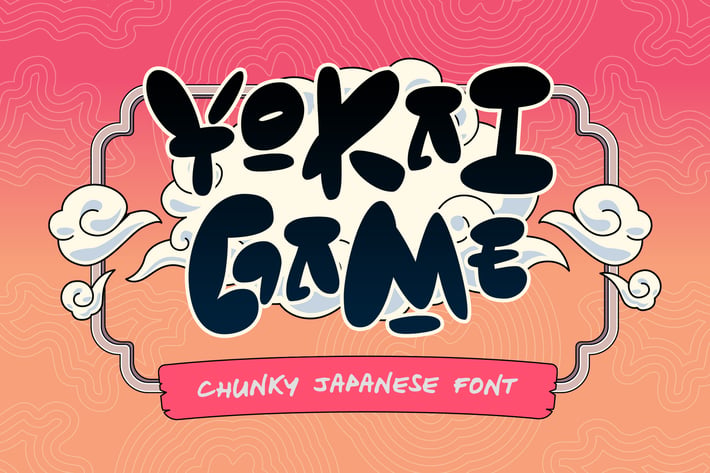
Yokai Game - Chunky Japanese Style Font
Yokai Game- Chunky Japanese Artistic Font - Bold Modern Contemporary Game Anime Display Font
Yokai Game is a Chunky Japanese Font inspired by traditional Japanese aesthetics and bold contemporary design. Its thick, striking characters bring a fusion of cultural richness and modern visual appeal, ideal for logos, branding, packaging, posters, T-shirt designs, comic, video game titles, anime-inspired projects, book covers, and any creative work that seeks a unique Japanese flair. Perfect for both print and digital platforms. Comes with uppercase and lowercase letters, punctuation, numerals, and alternates. It also includes multilingual support, making it versatile for global projects. Designed by experts who understand the balance between traditional and modern design elements, Yokai ensures optimal readability while maintaining its artistic and chunky.